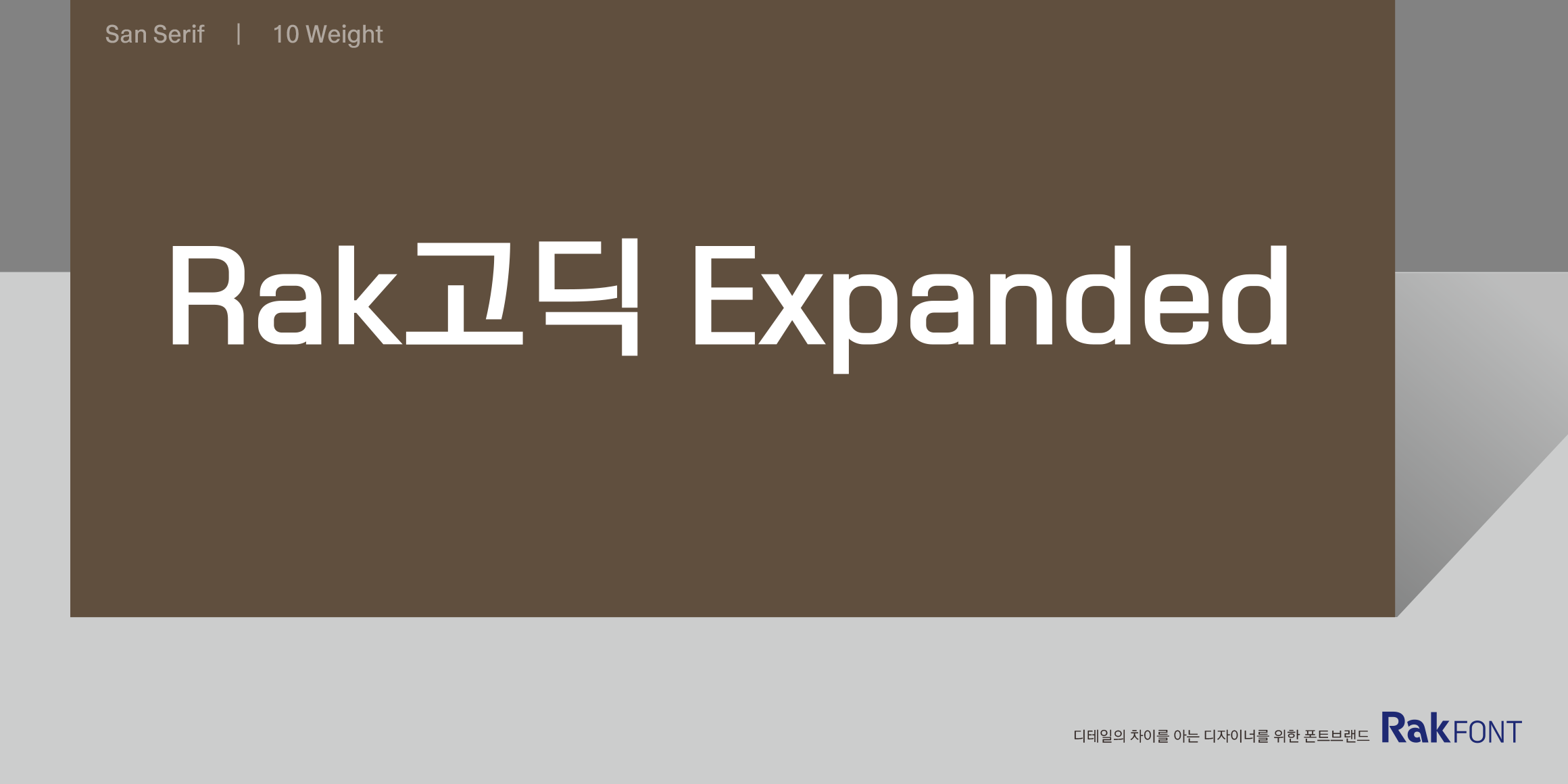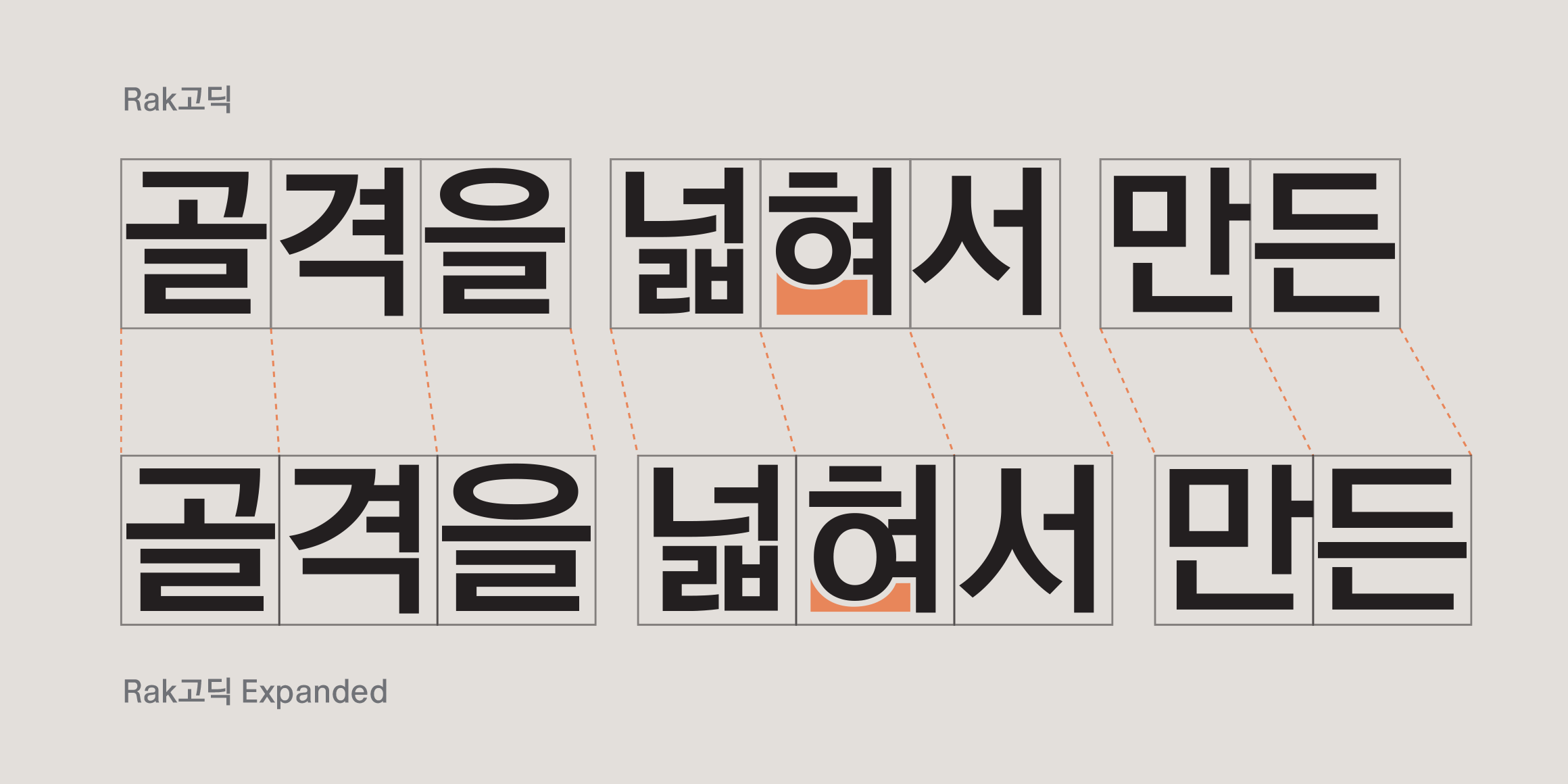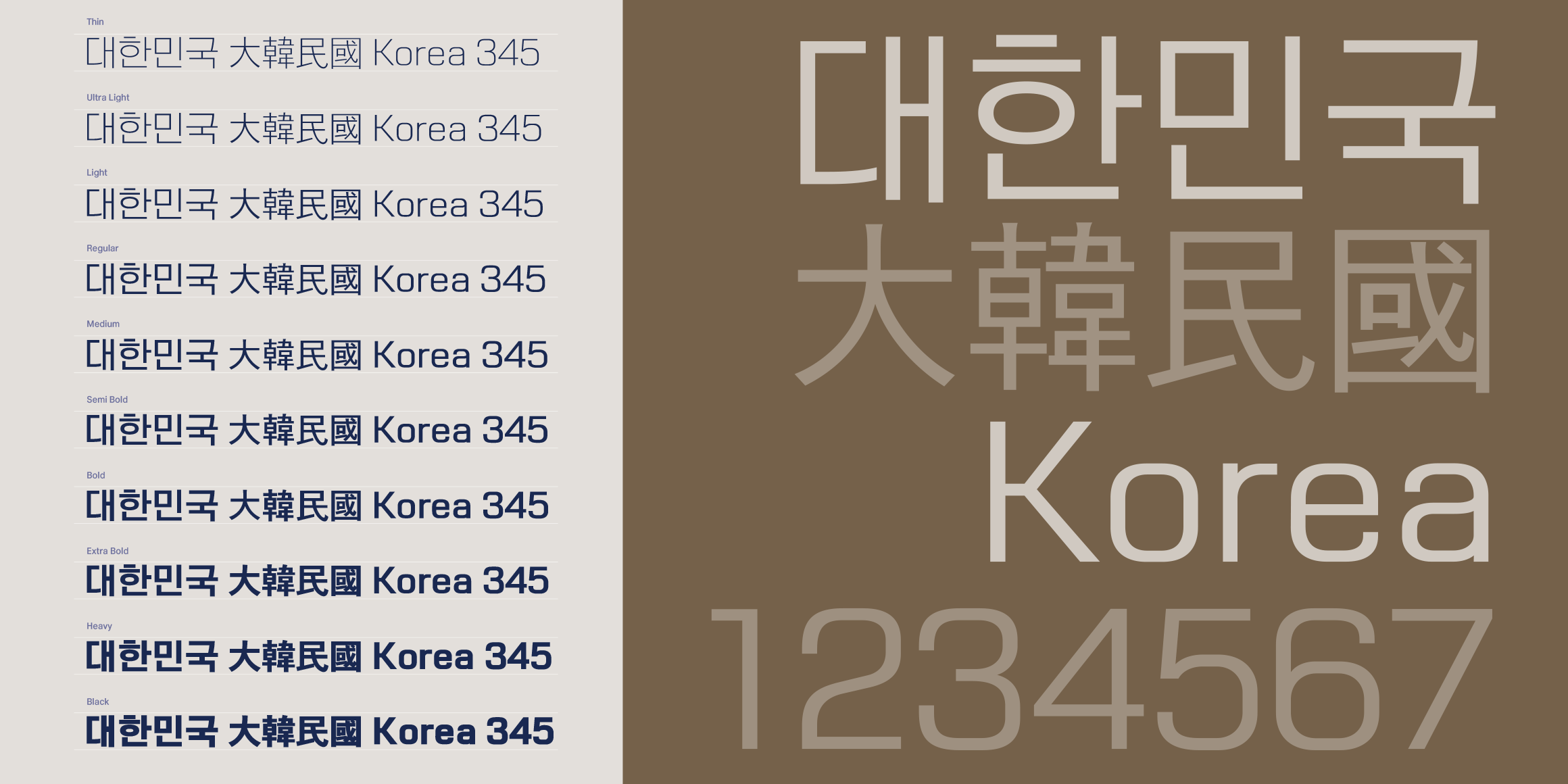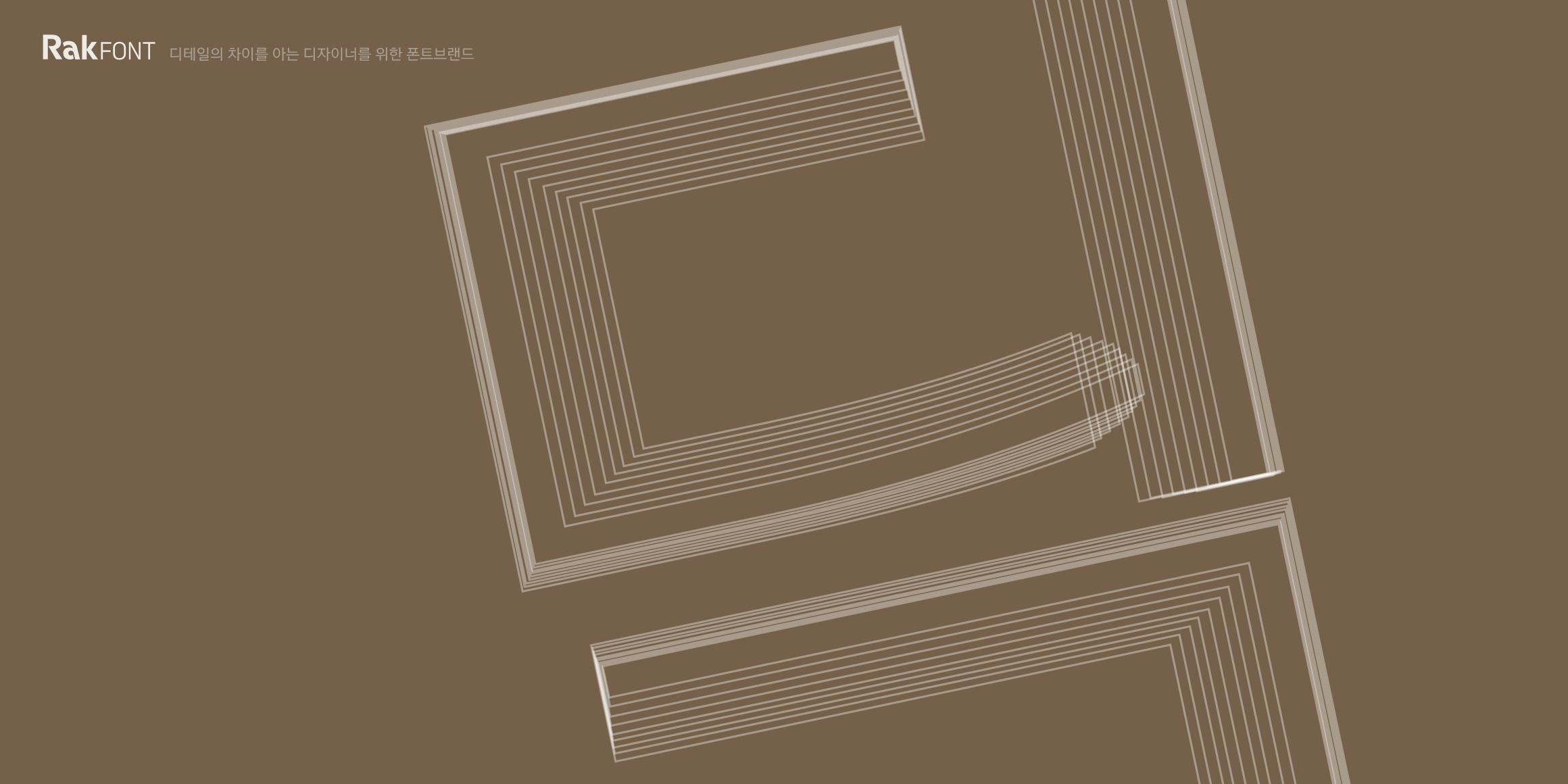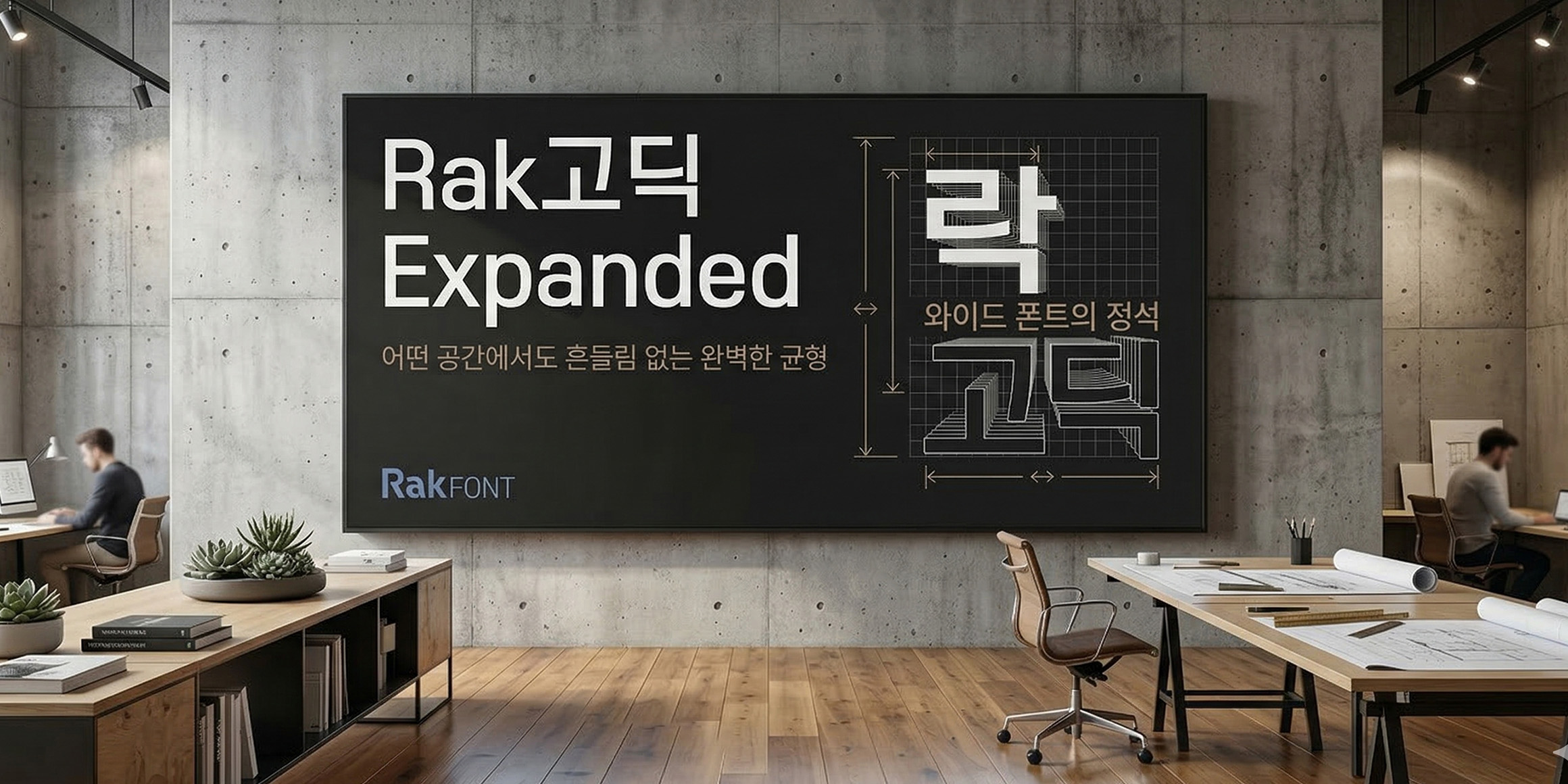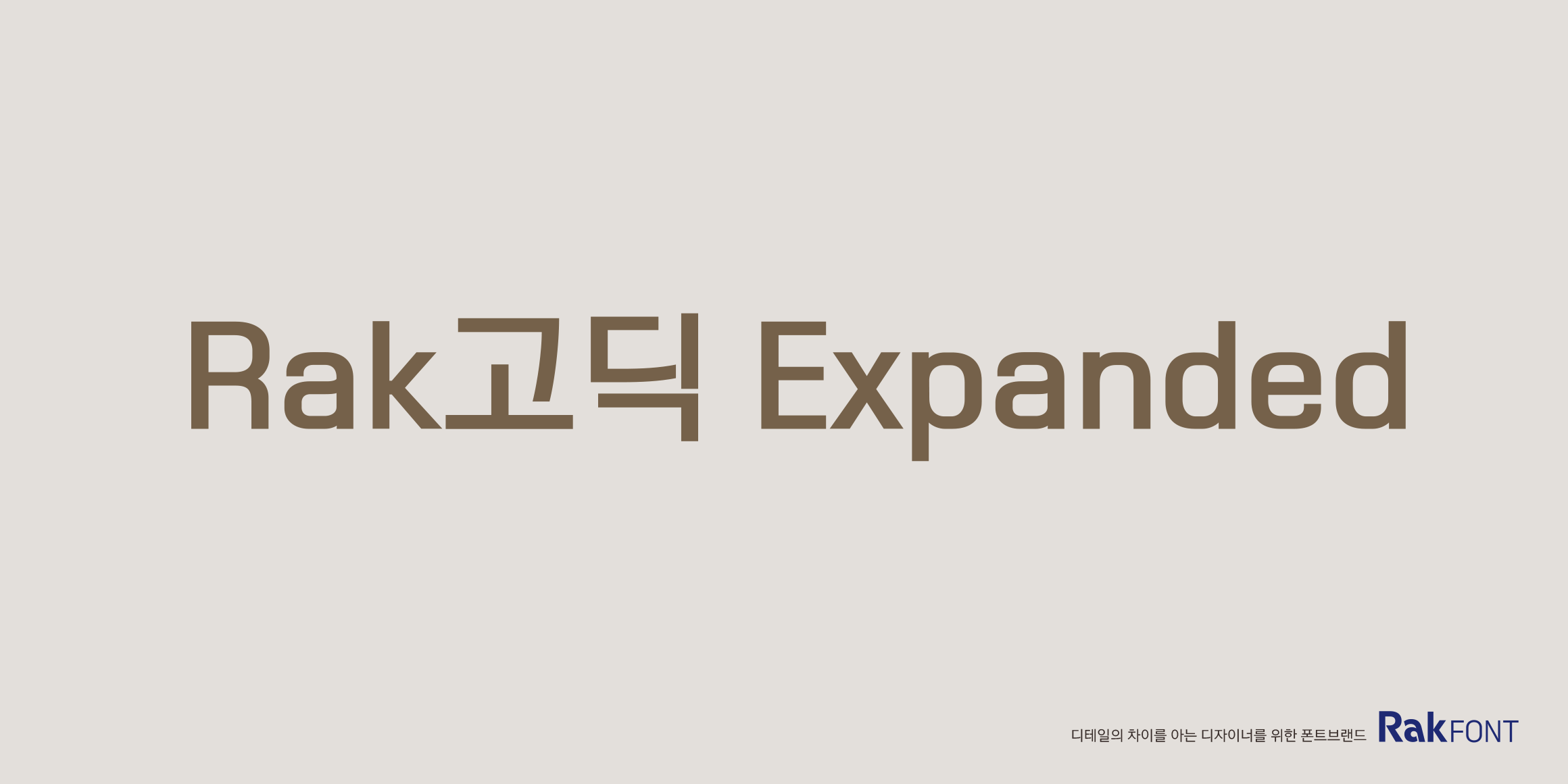
RakGo Expanded
Rakfont
'Rak Gothic Expanded' is an extended typeface family that broadens the solid proportions of the original Rak Gothic. It visually and perfectly corrects the thickening of vertical strokes and the imbalance between characters that occur when artificially stretching character widths in graphic software. It is a high-end Gothic font optimized for any design requiring a weighty presence that fills the page and stable legibility.
• Park Yong-rak